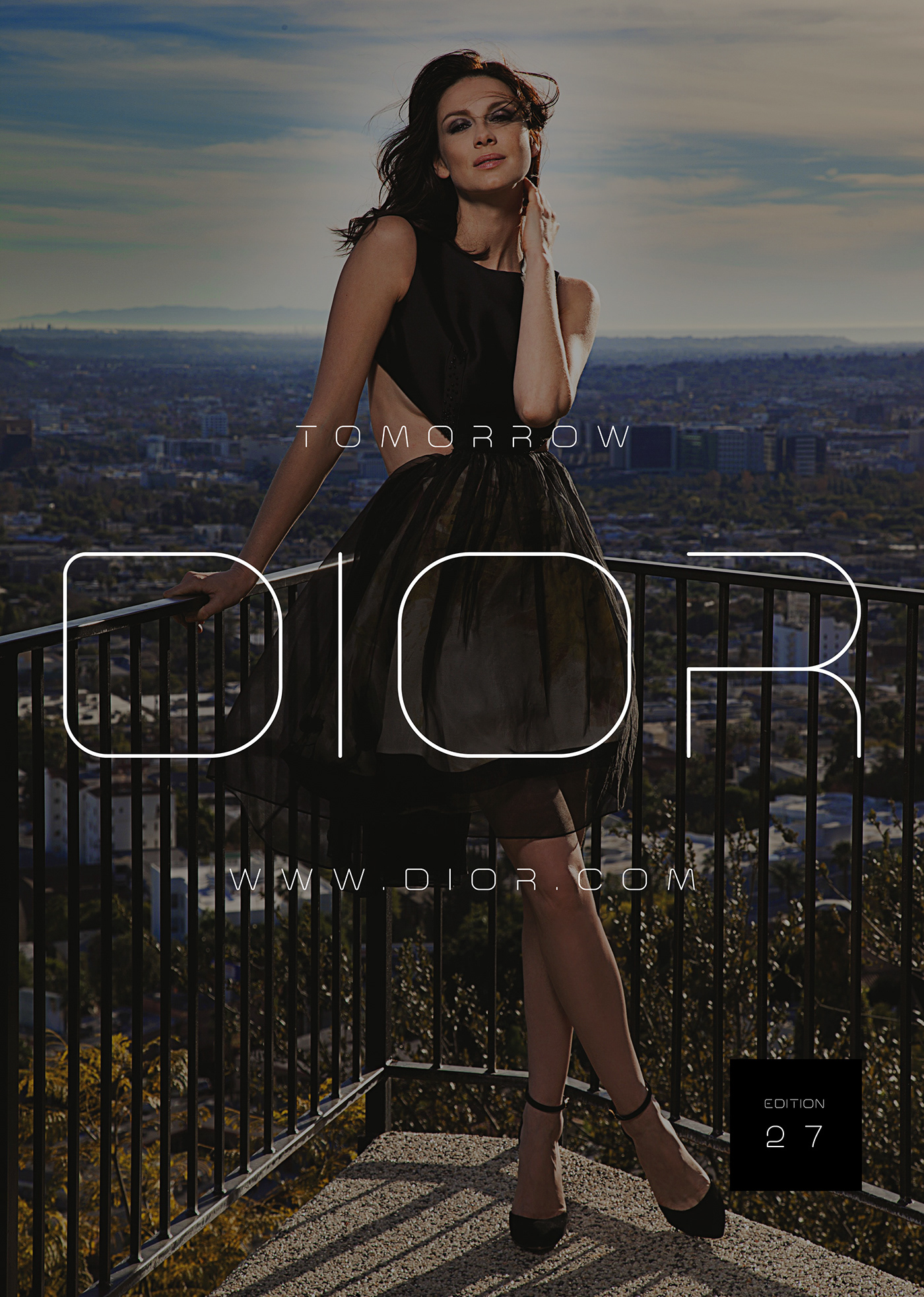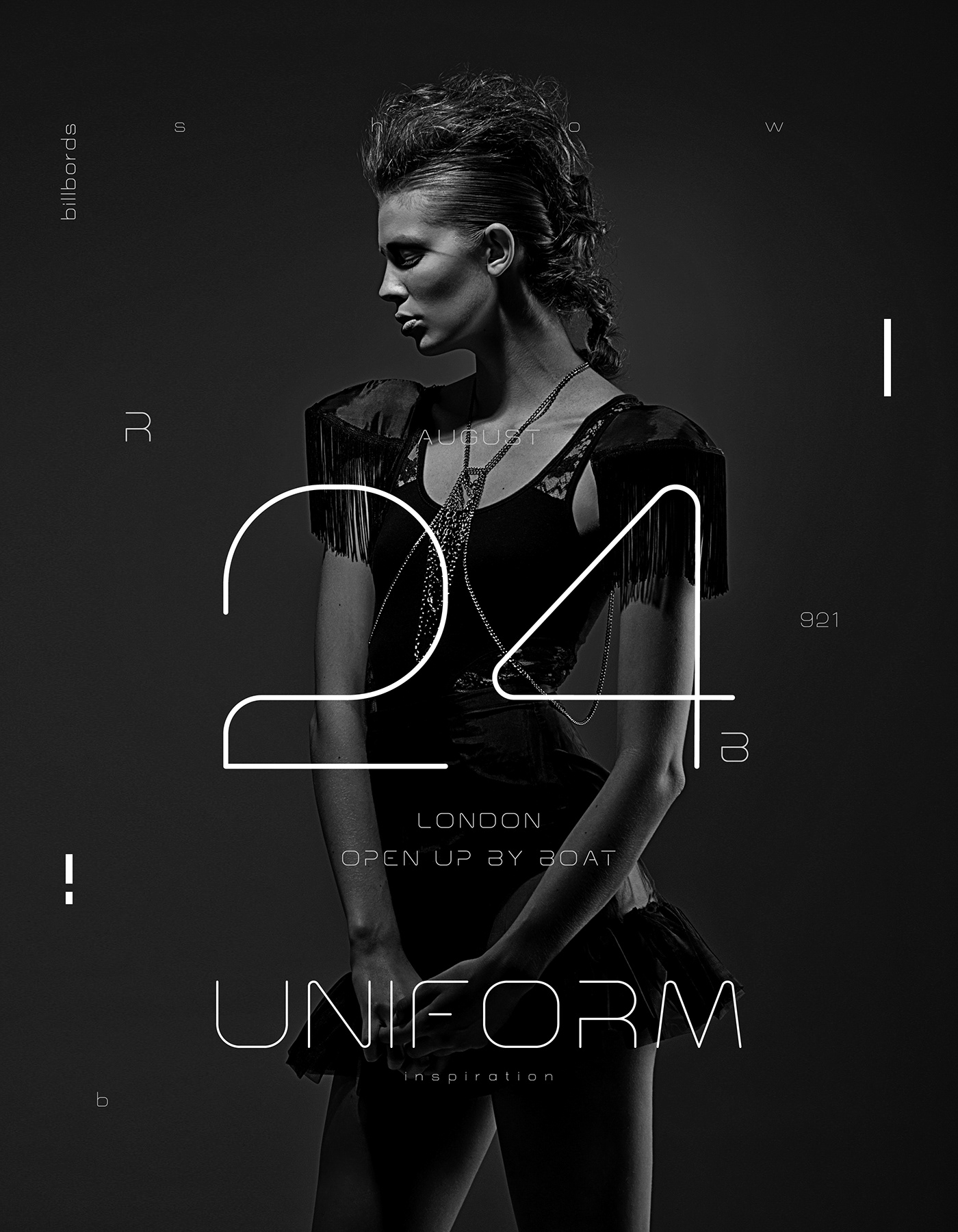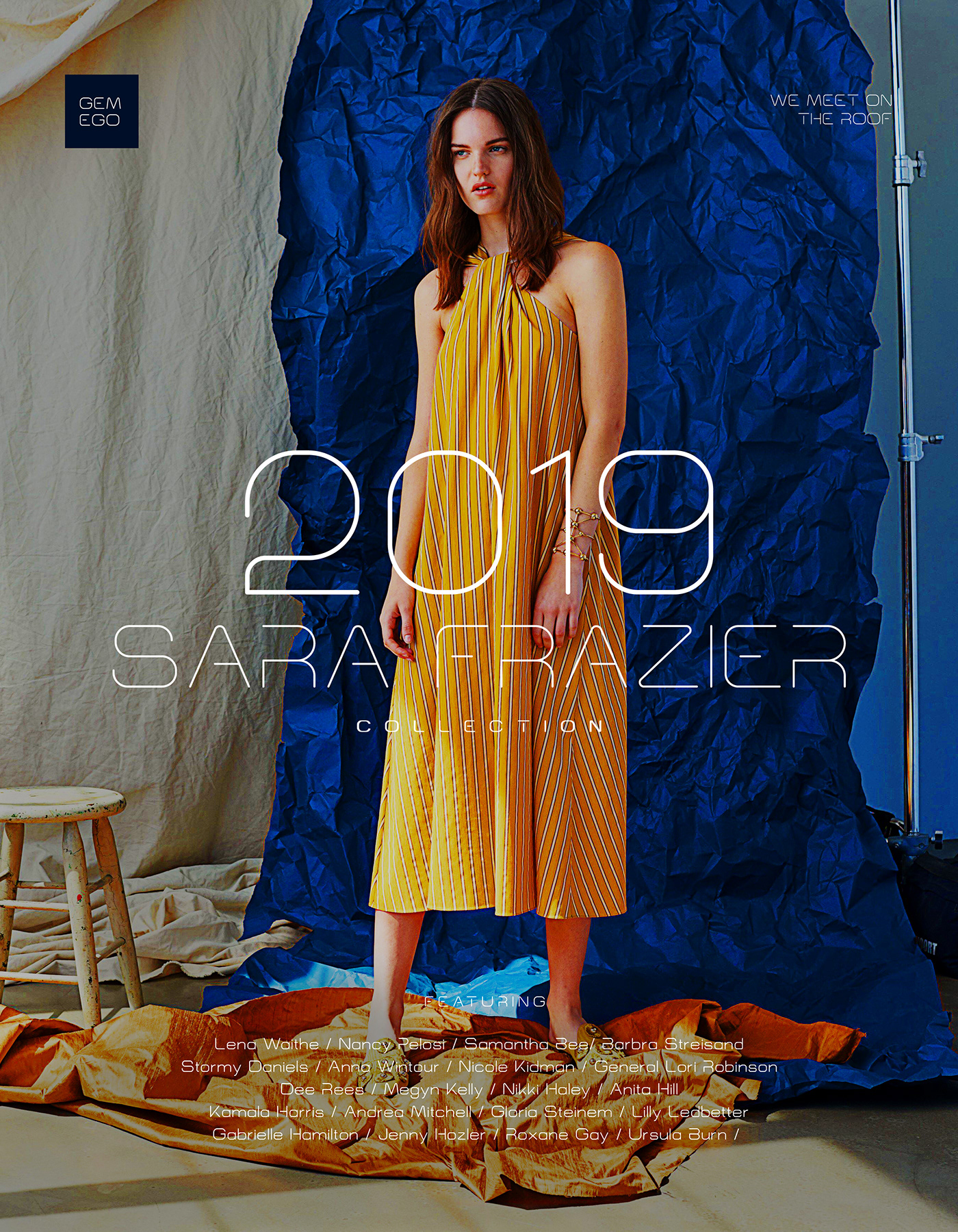
MORENA FREE TYPEFACE
Morena Free Typeface
Morena, is a modern sans-serif font family. It will give the classy, sophisticated touch for every design. Great to pair with each font, or let it stand in their own. Best choice for titles, posters, branding, advertisements, quotes, and all designs which needs a strong yet elegant style.